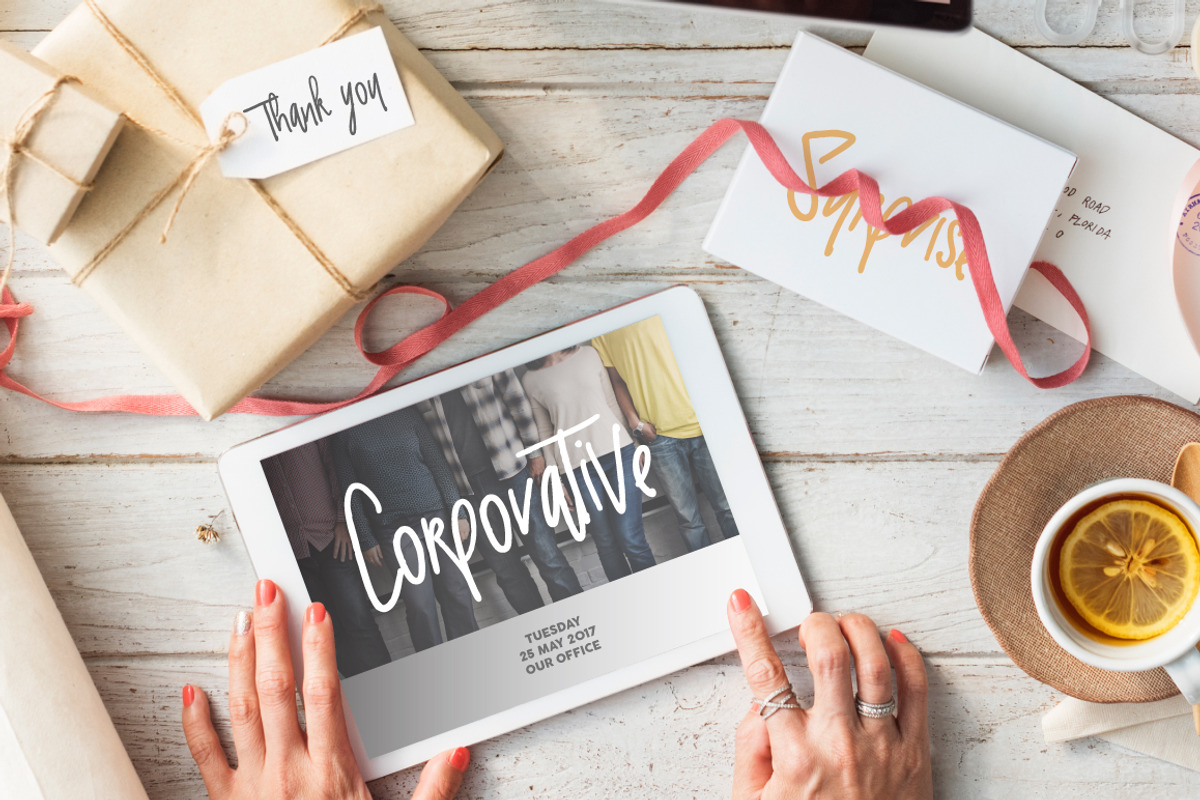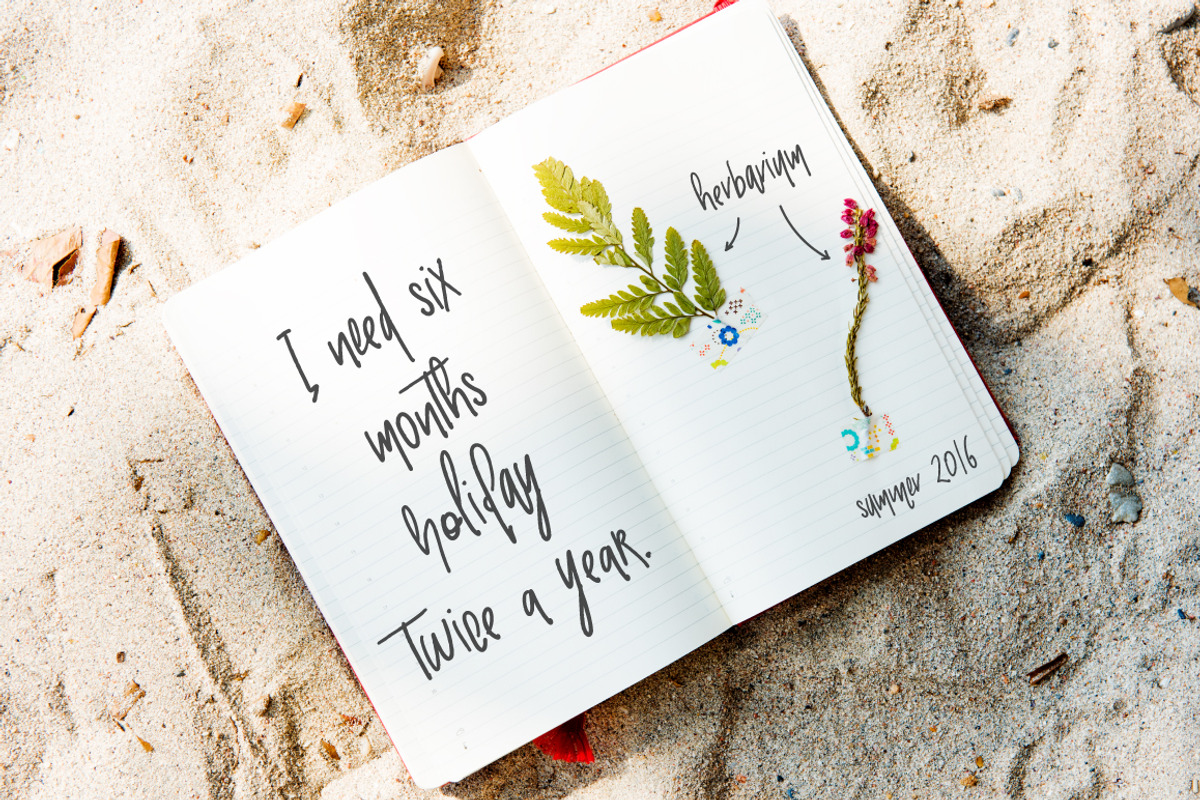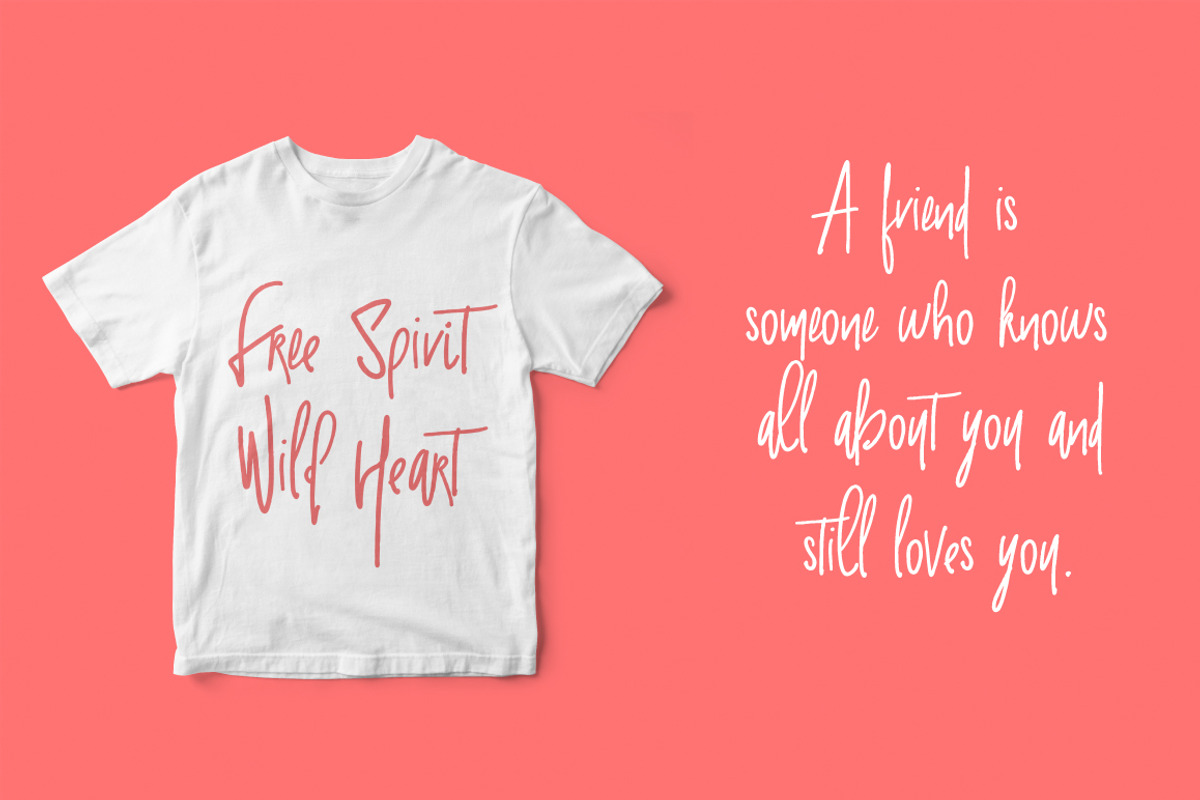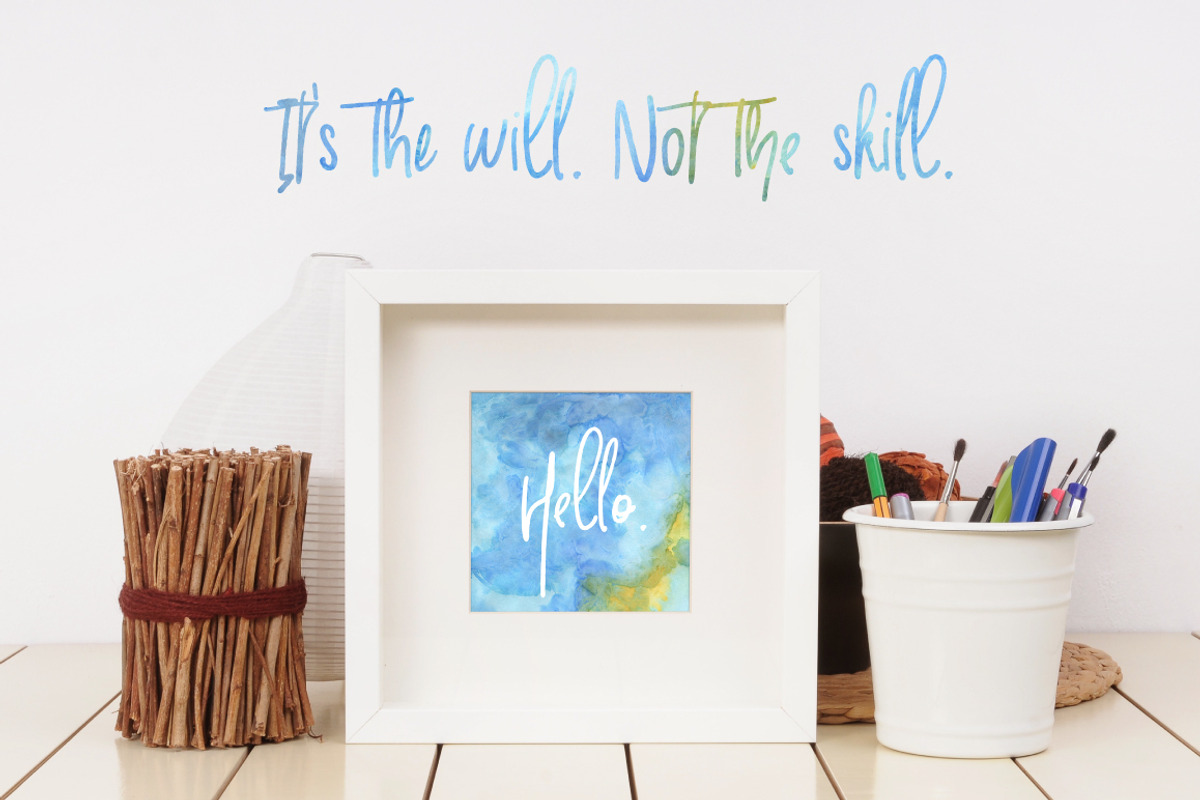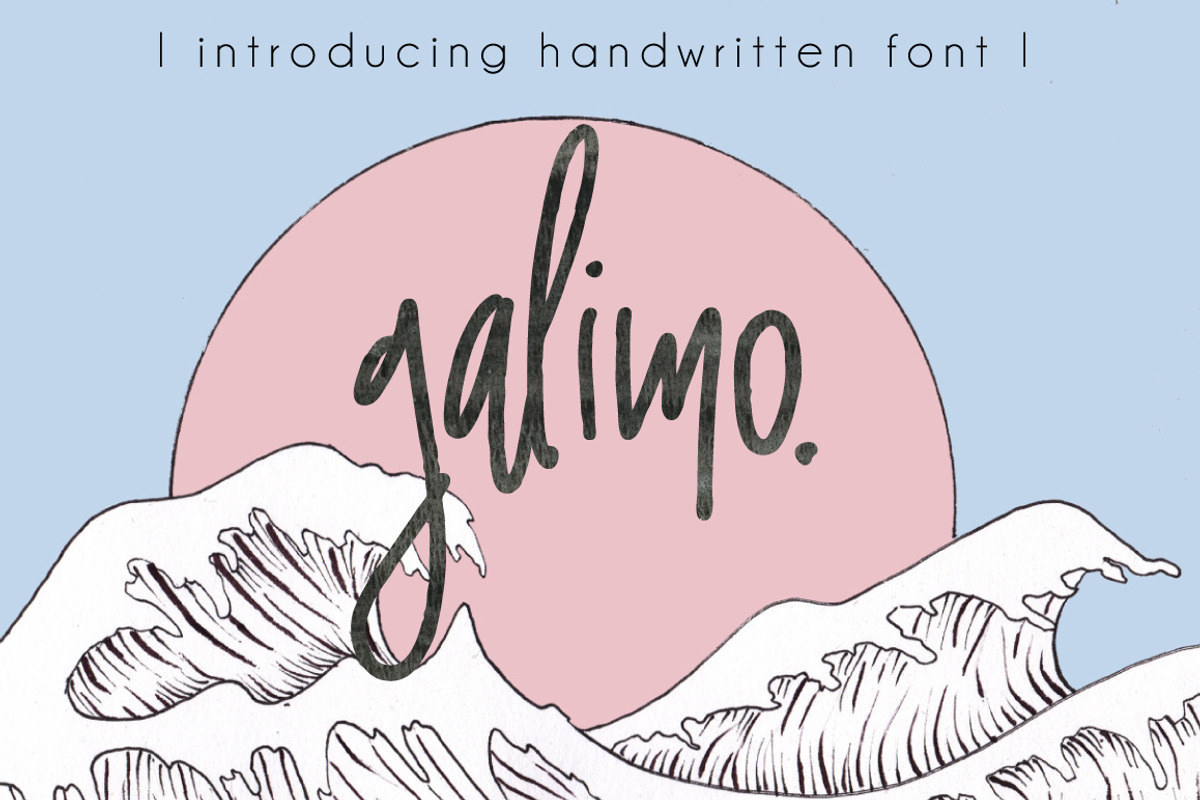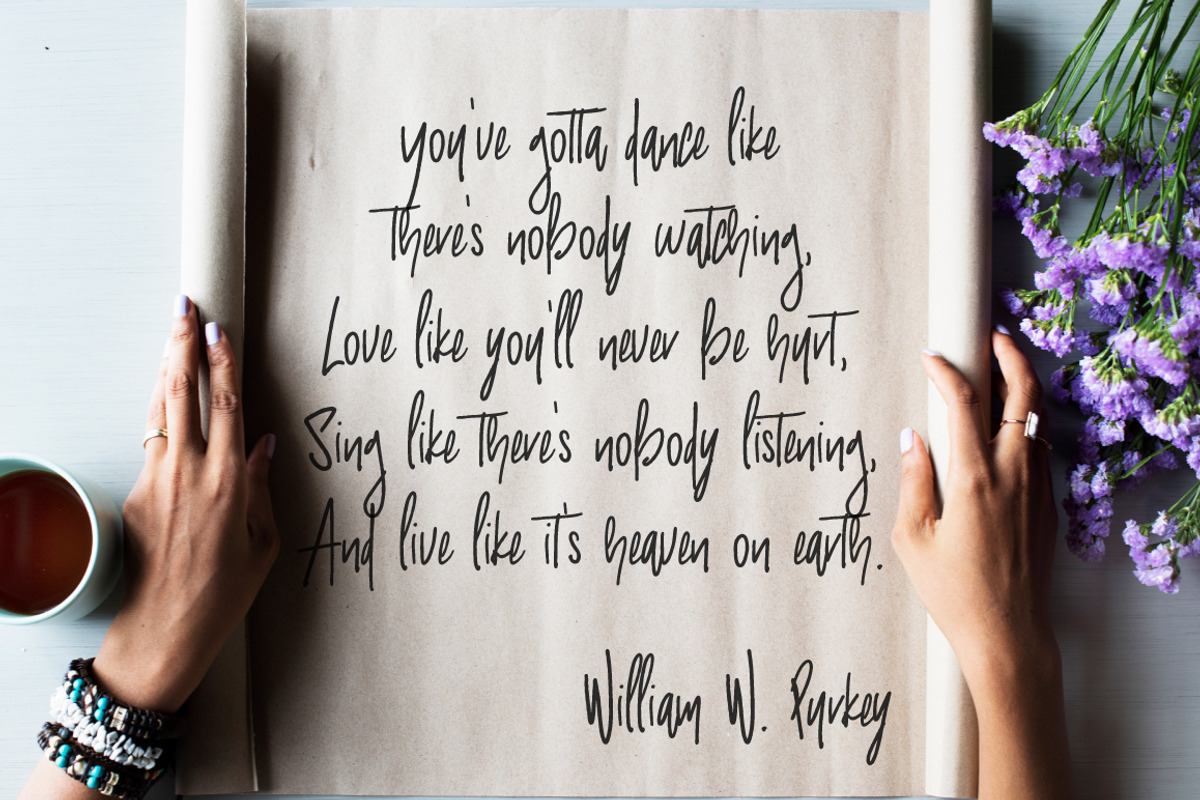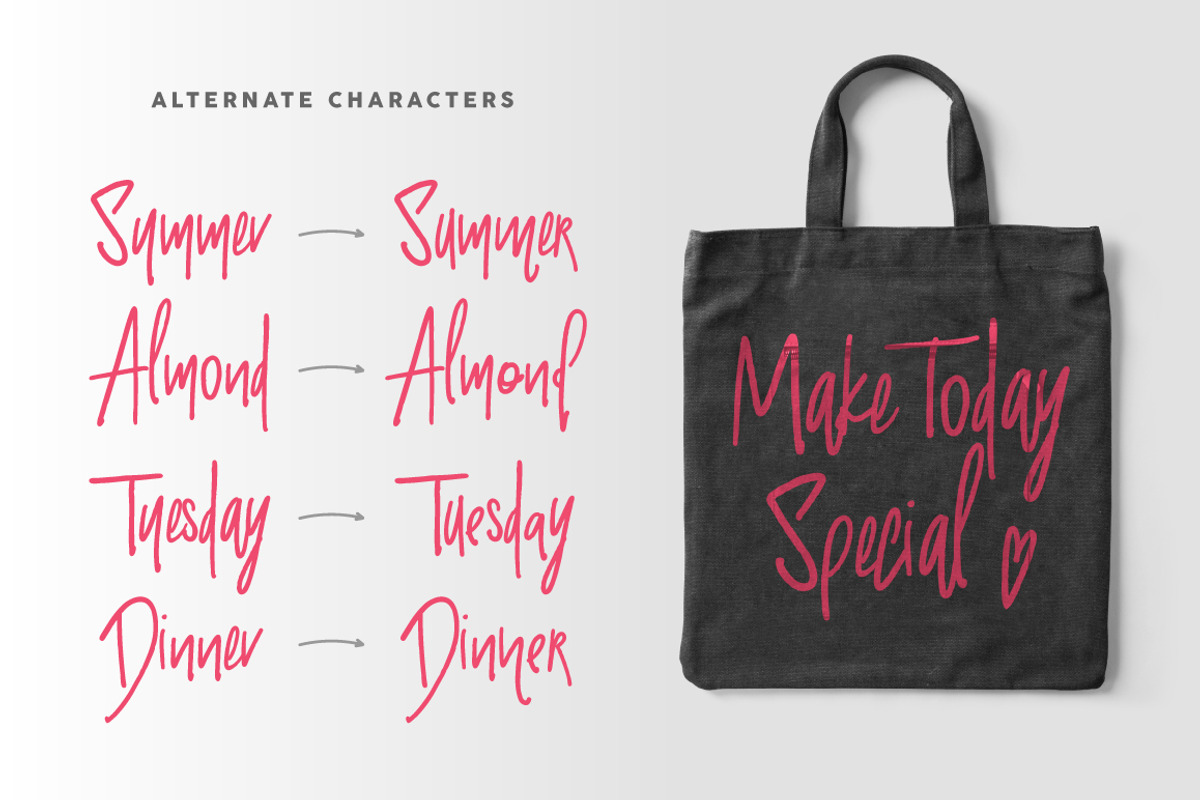
Galimo Font Duo
Galimo Font Duo by Creamy Script is a font selected for branding, posters, packaging, typography.
- Galimo - it's handwritten brush script with many different alternate characters.
Why Galimo Font Duo is worth a look
Galimo Font Duo by Creamy Script fits naturally into Branding, posters, packaging, typography.